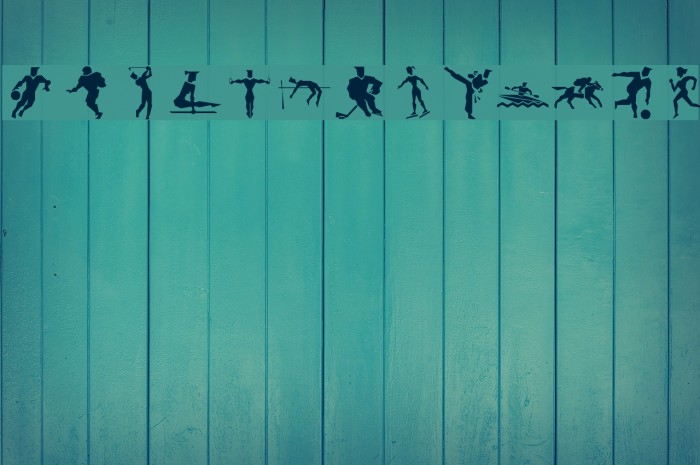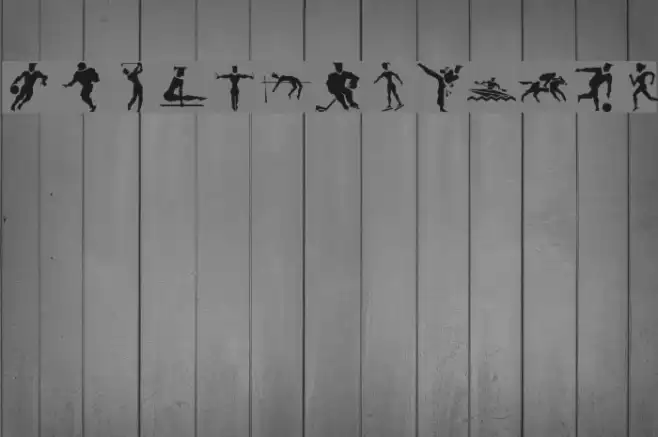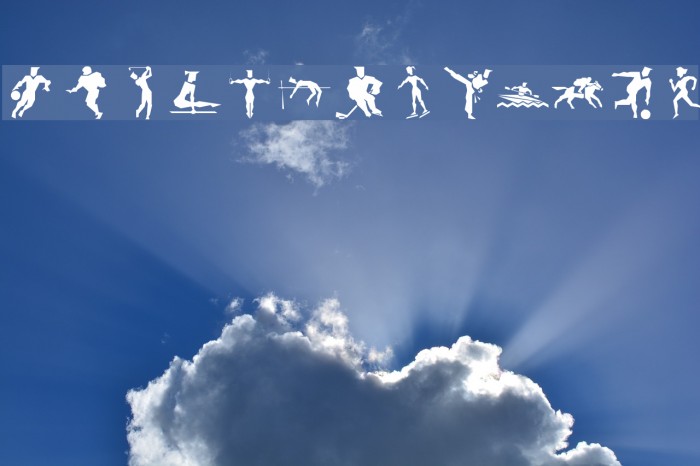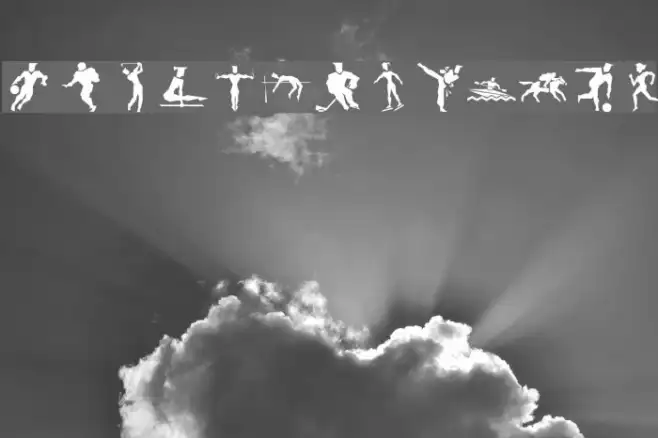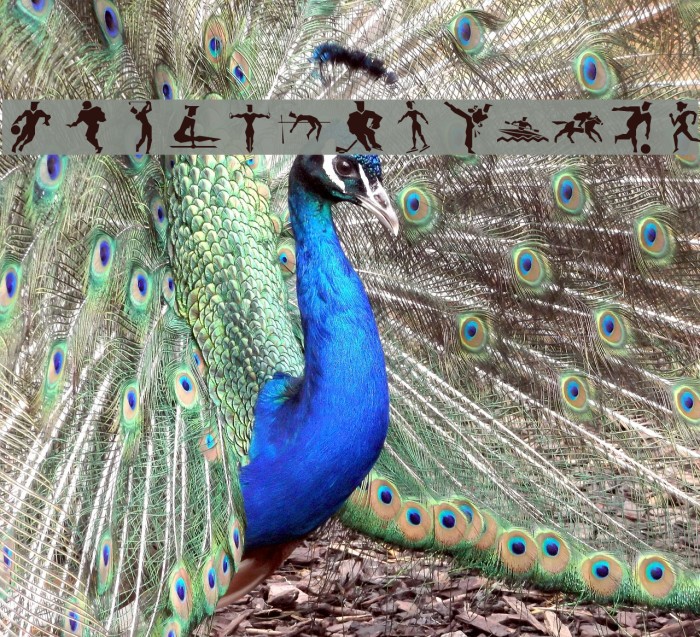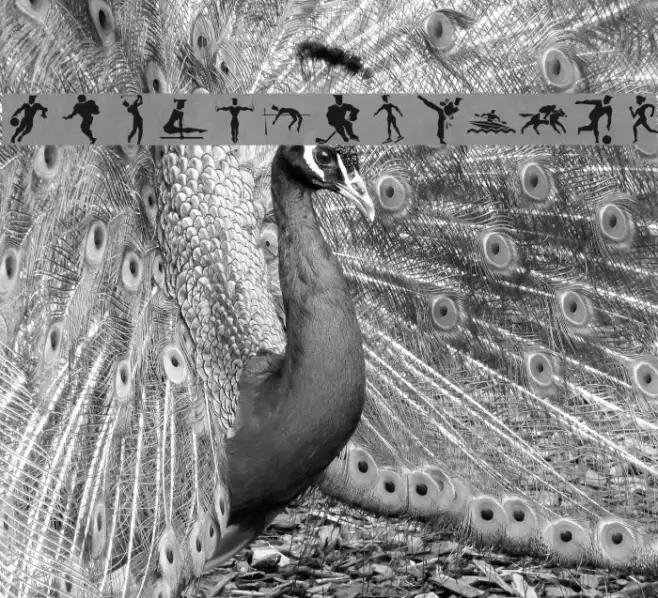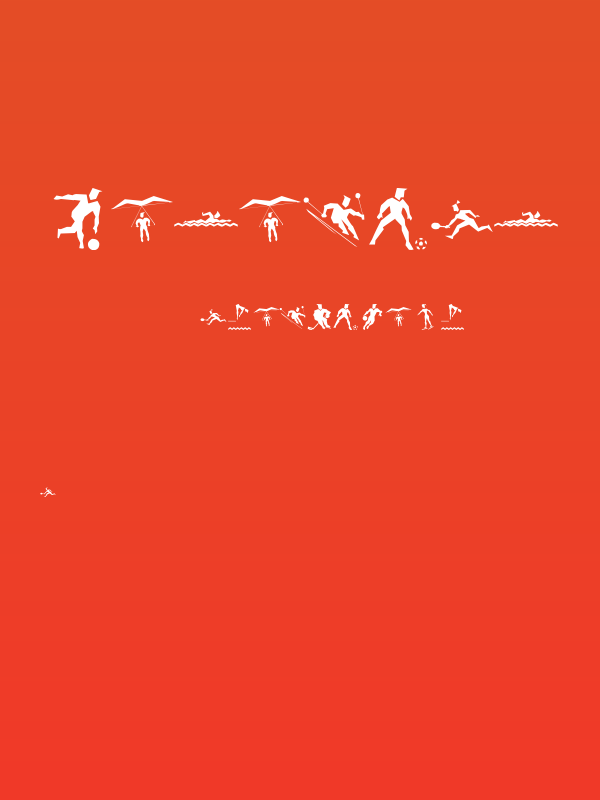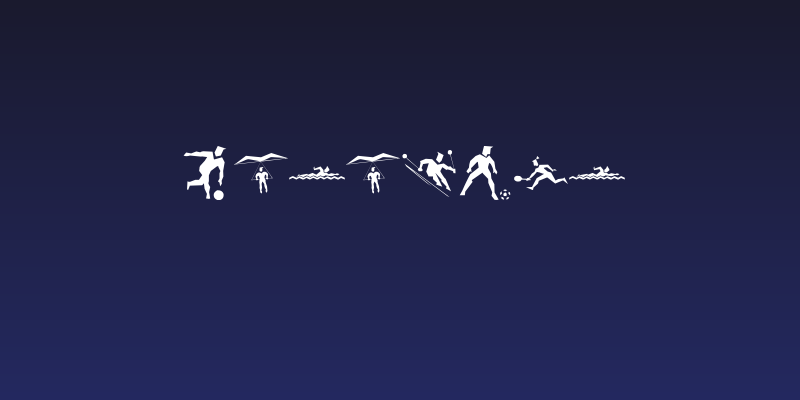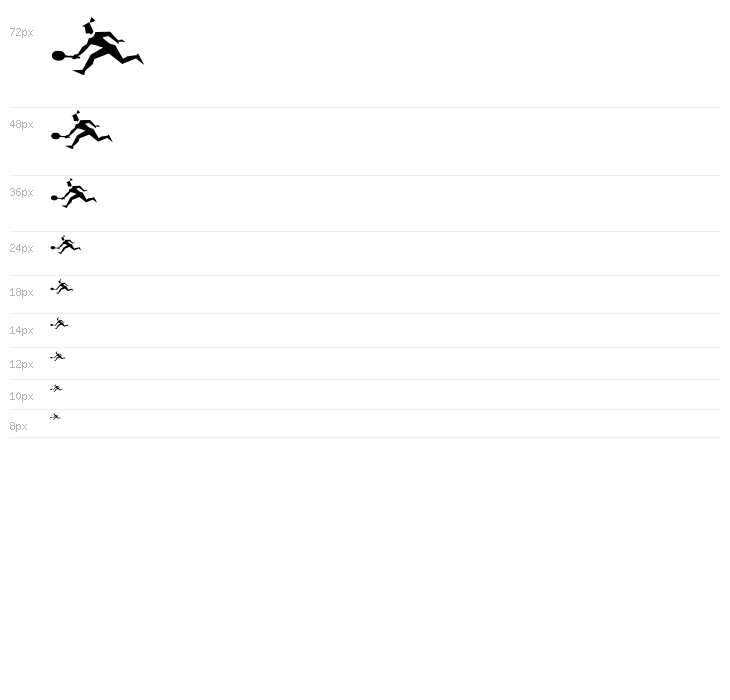
lpsports1 Font
lpsports1 Description
A collection of pictogram-style sports icons, each representing a different athletic activity using simplified, bold silhouettes. The icons are uniform in weight and style, with clear, minimalistic shapes and no text or traditional letterforms.
| Overall Style | Modern, Minimalist, Decorative |
| Use Case | Icons, Signage, Infographics, Visual aids |
| Proposed Projects | Infographics, event signage, sports programs, educational materials, digital dashboards. |